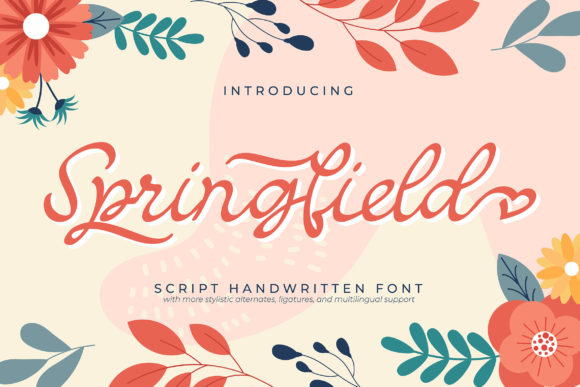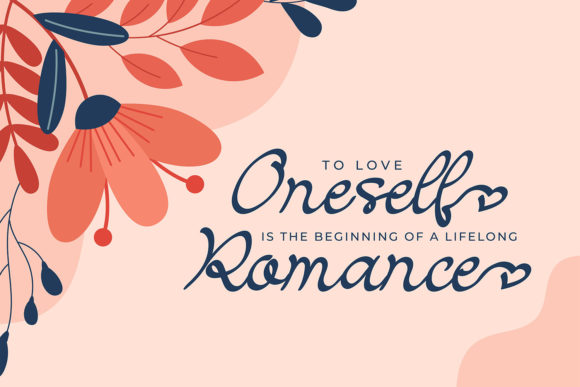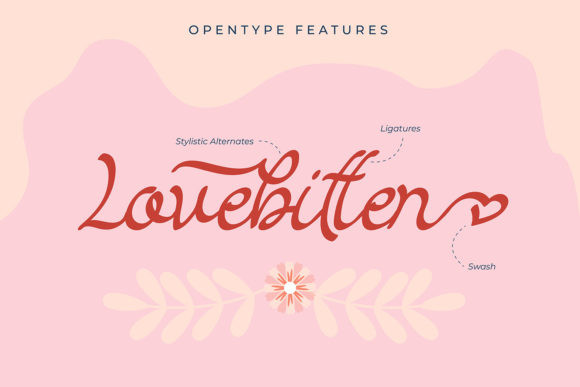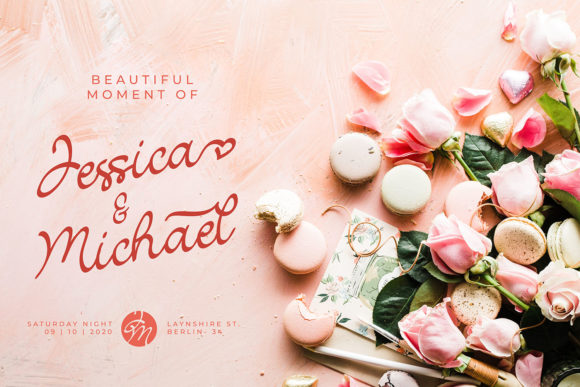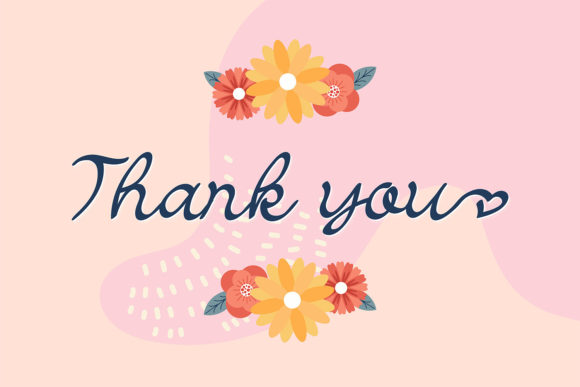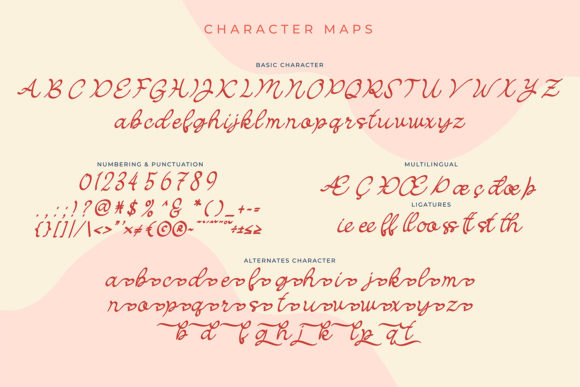
Springfield Font
About Springfield Font
Springfield is a delicate and trendy handwritten font. It looks lovely on invitations, cards, quotes, greeting cards, logos, business cards and every other design you can think of. This font is PUA encoded which means you can access all of the glyphs and swashes with ease!